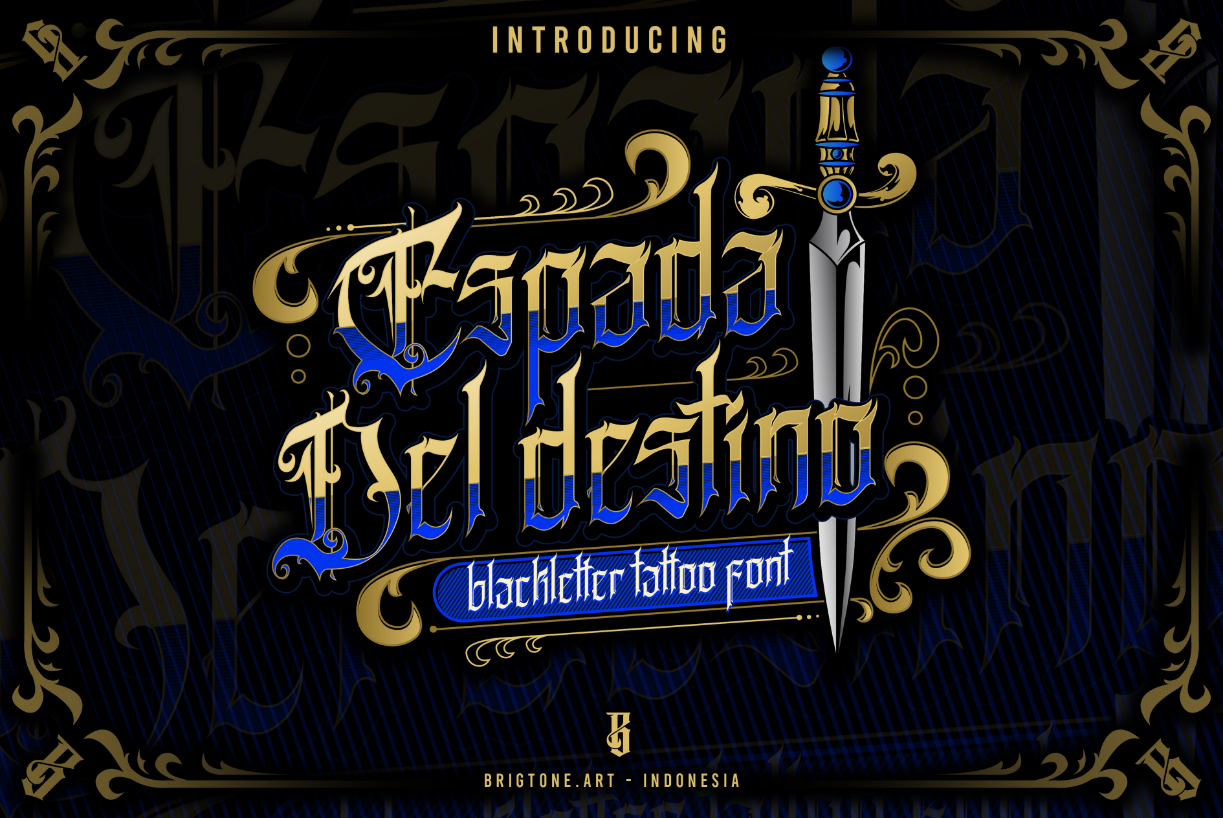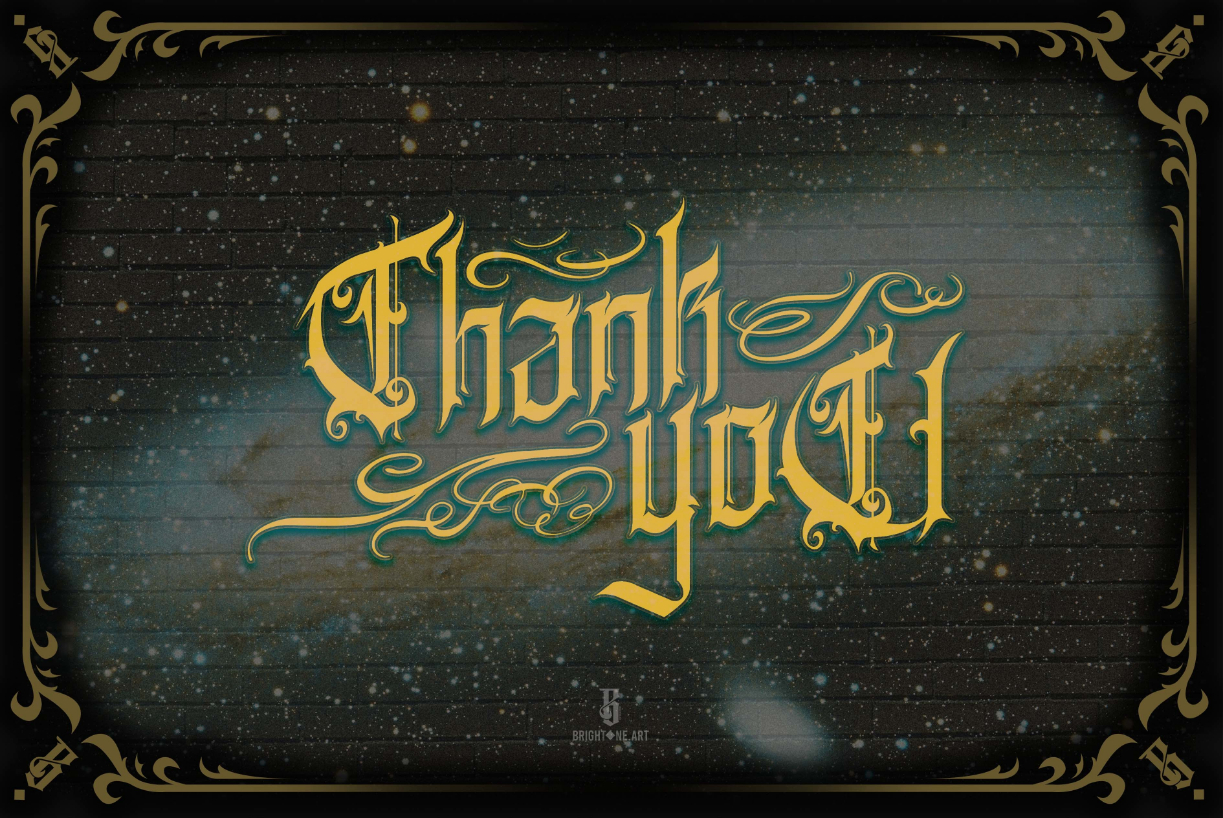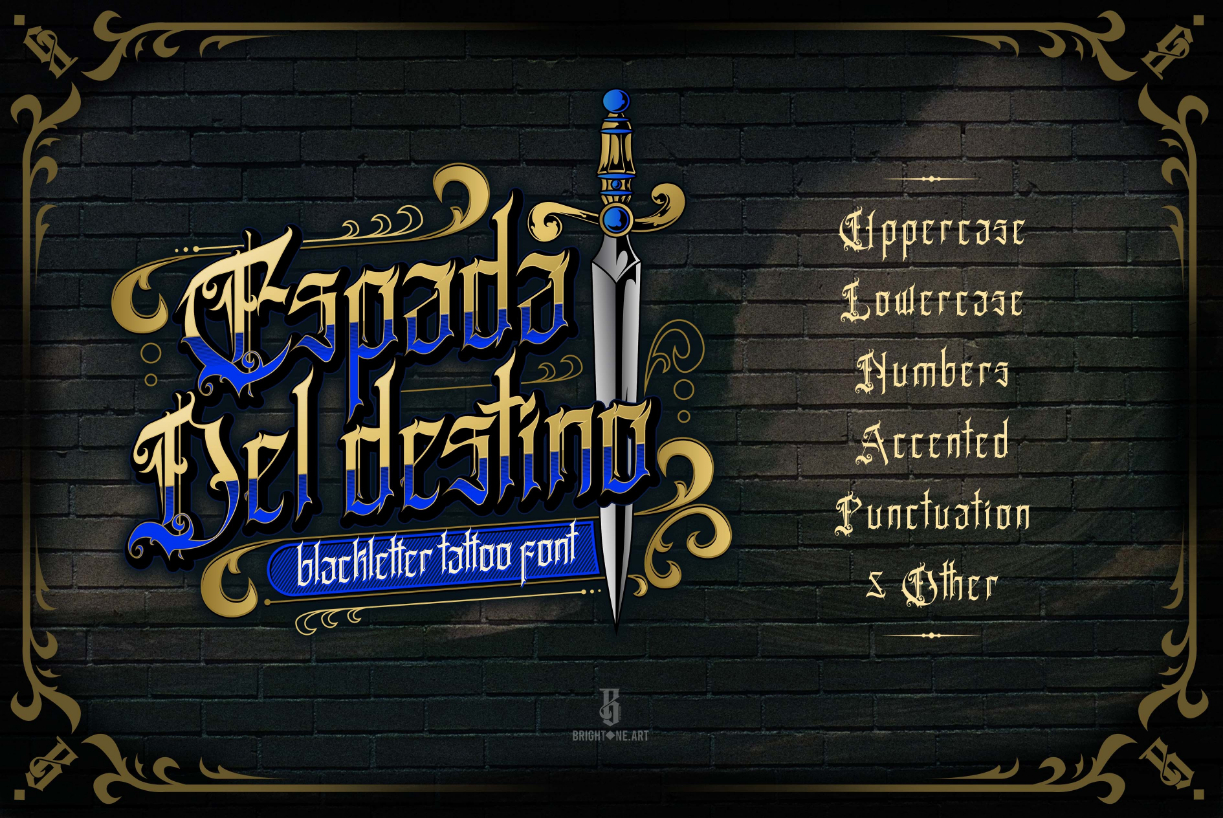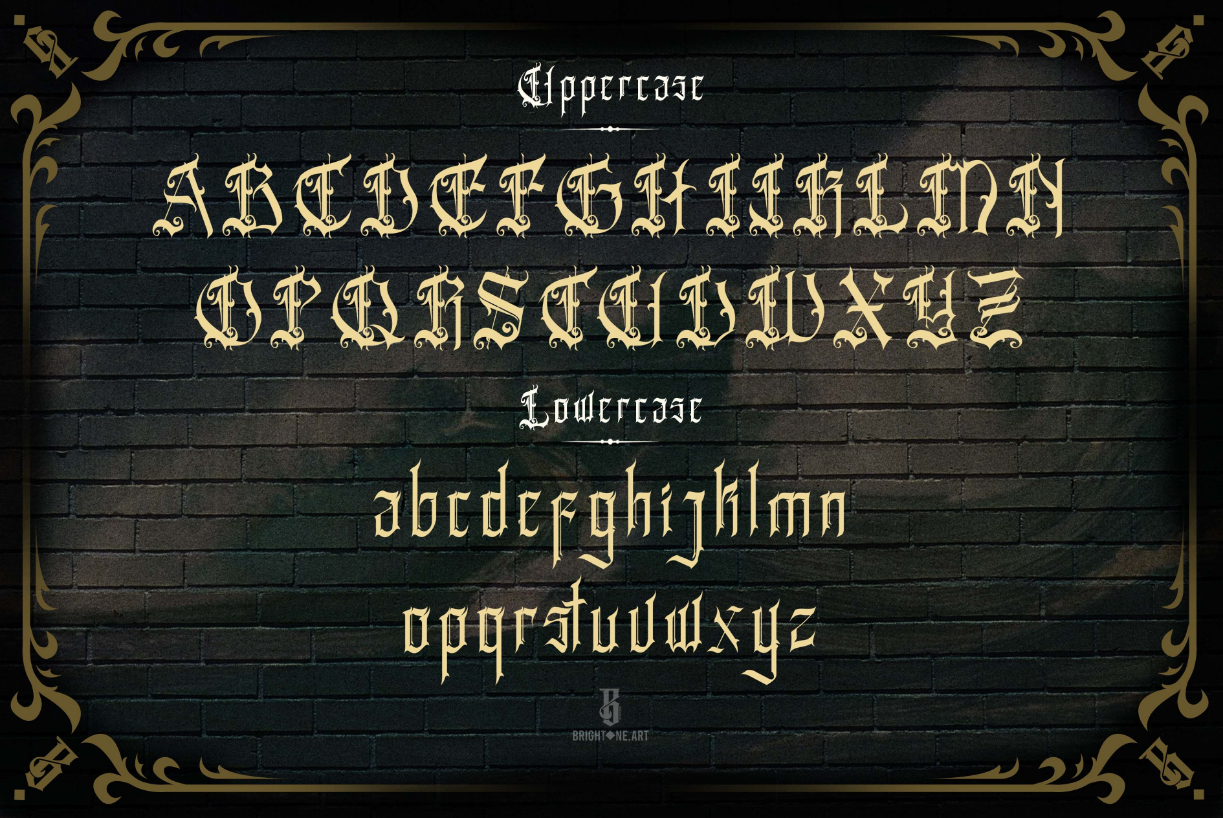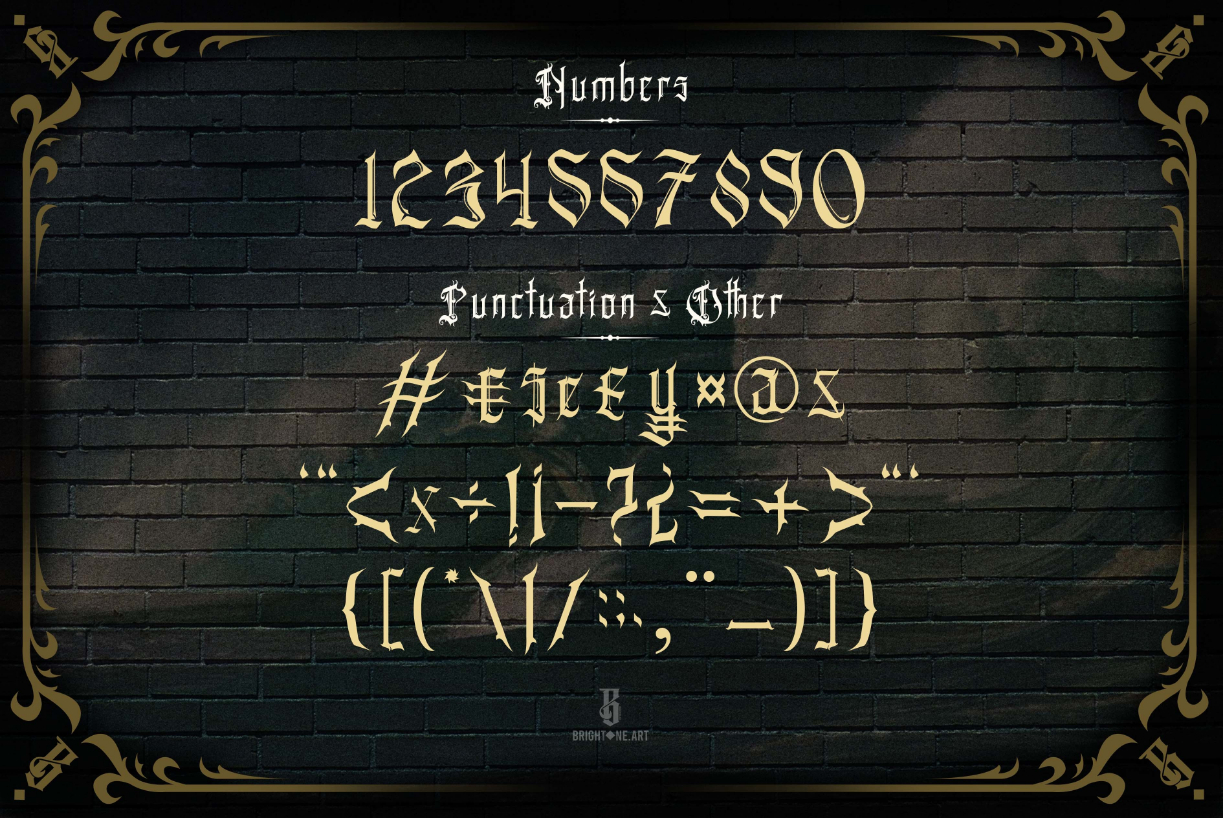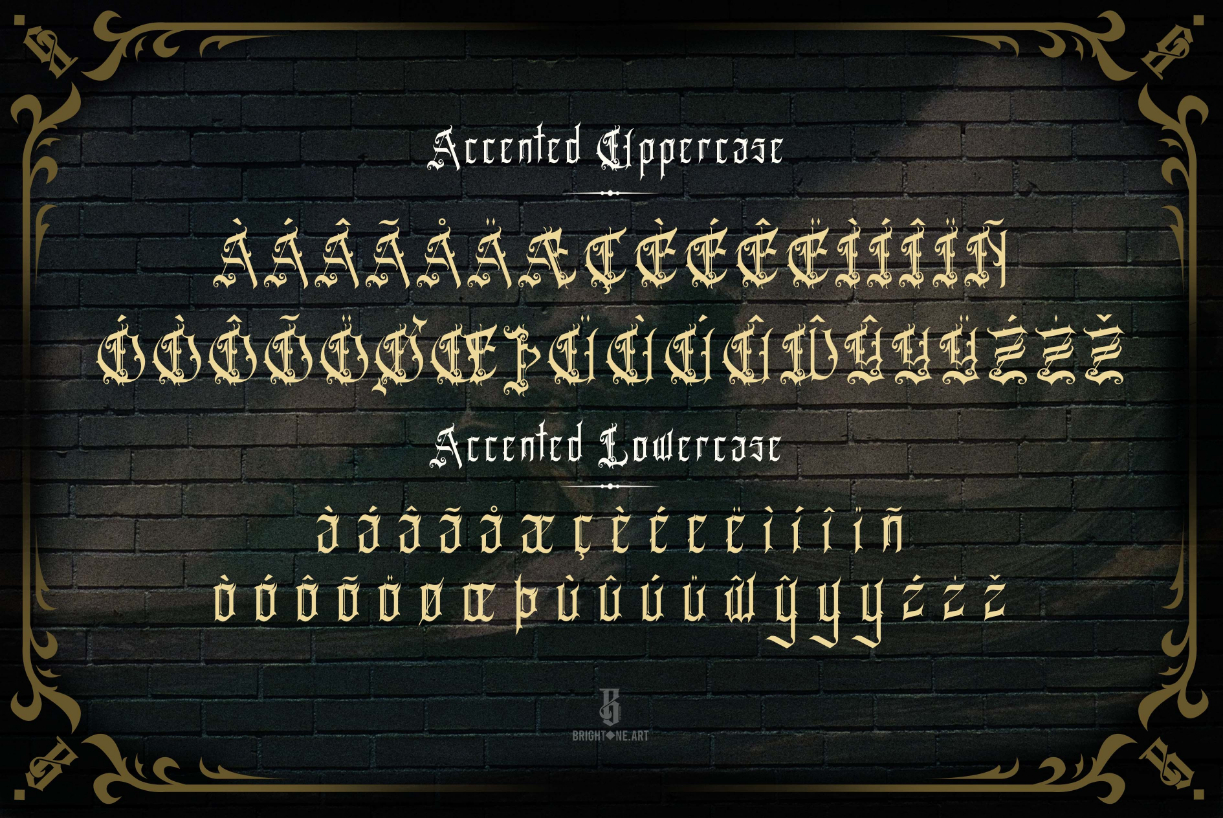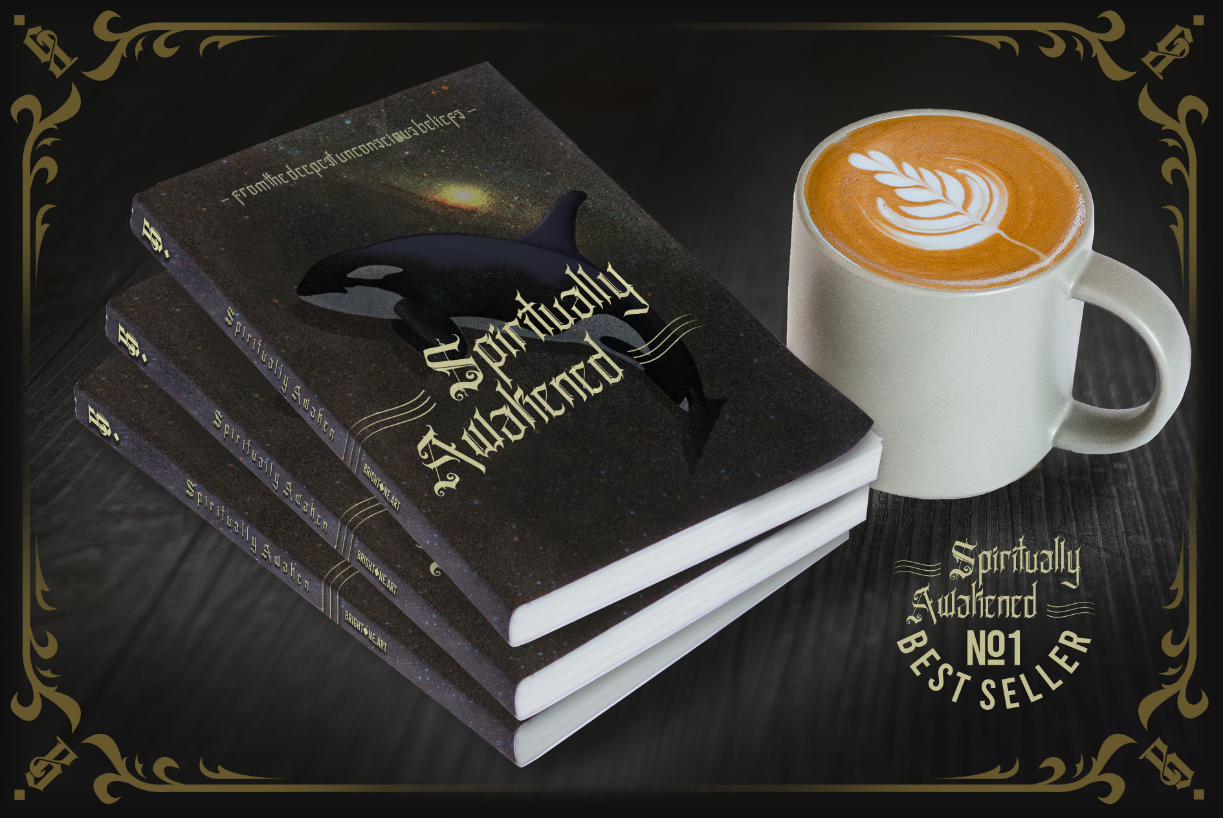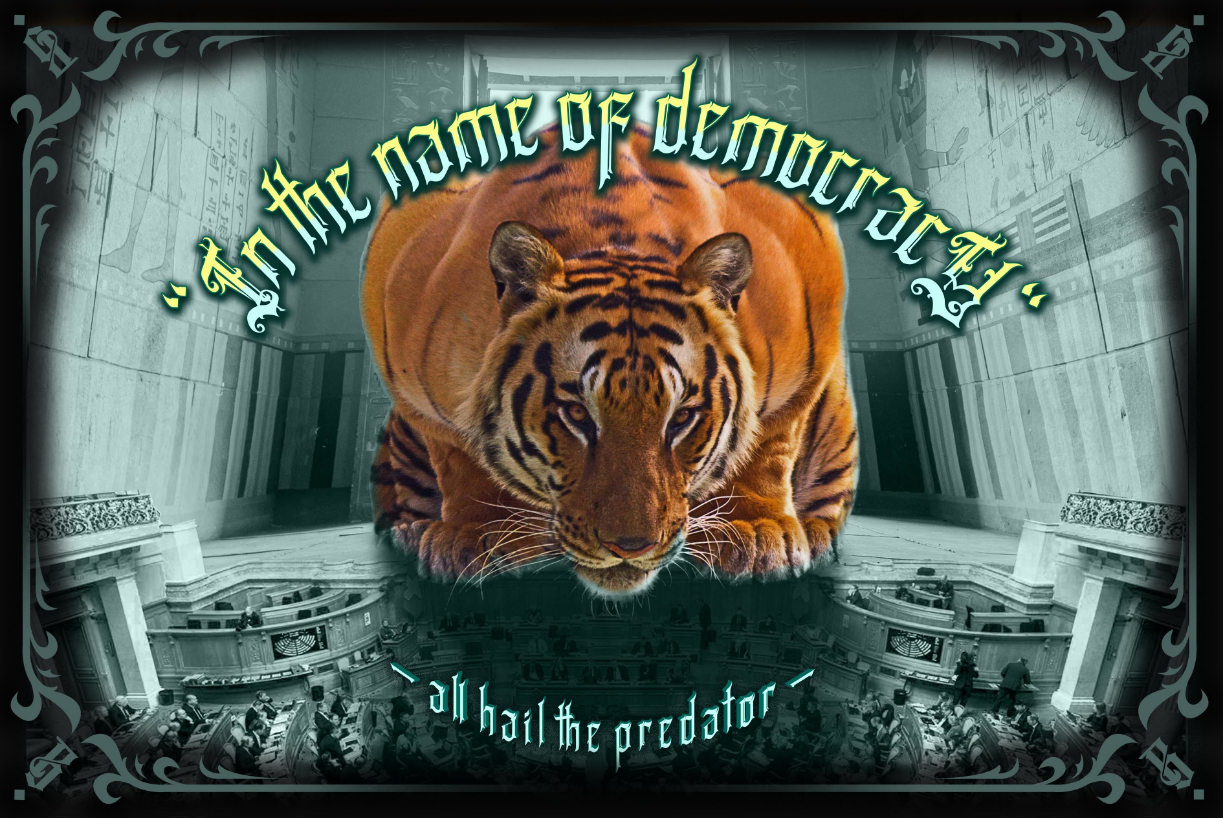
Espada Del Destino Font
About Espada Del Destino Font
Espada Del Destino is a bold and authentic blackletter font. Add this assertive font to your formal designs and notice how they instantly stand out.